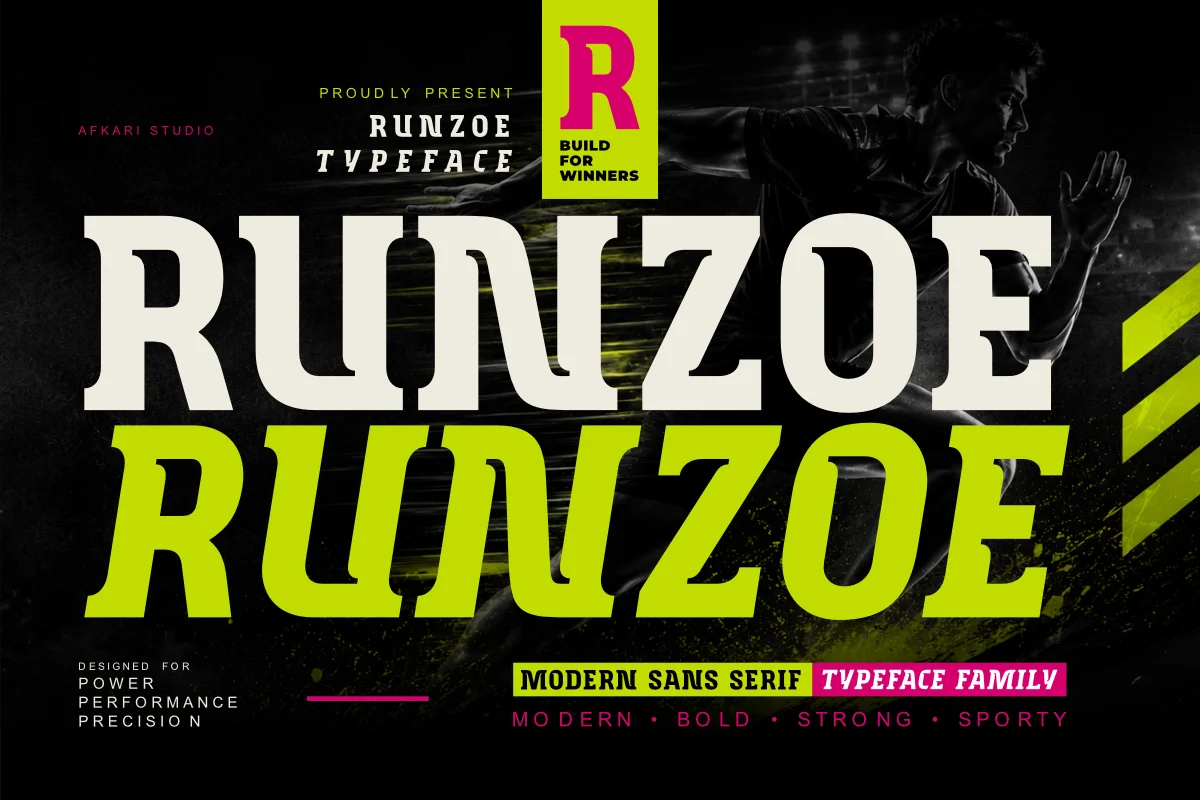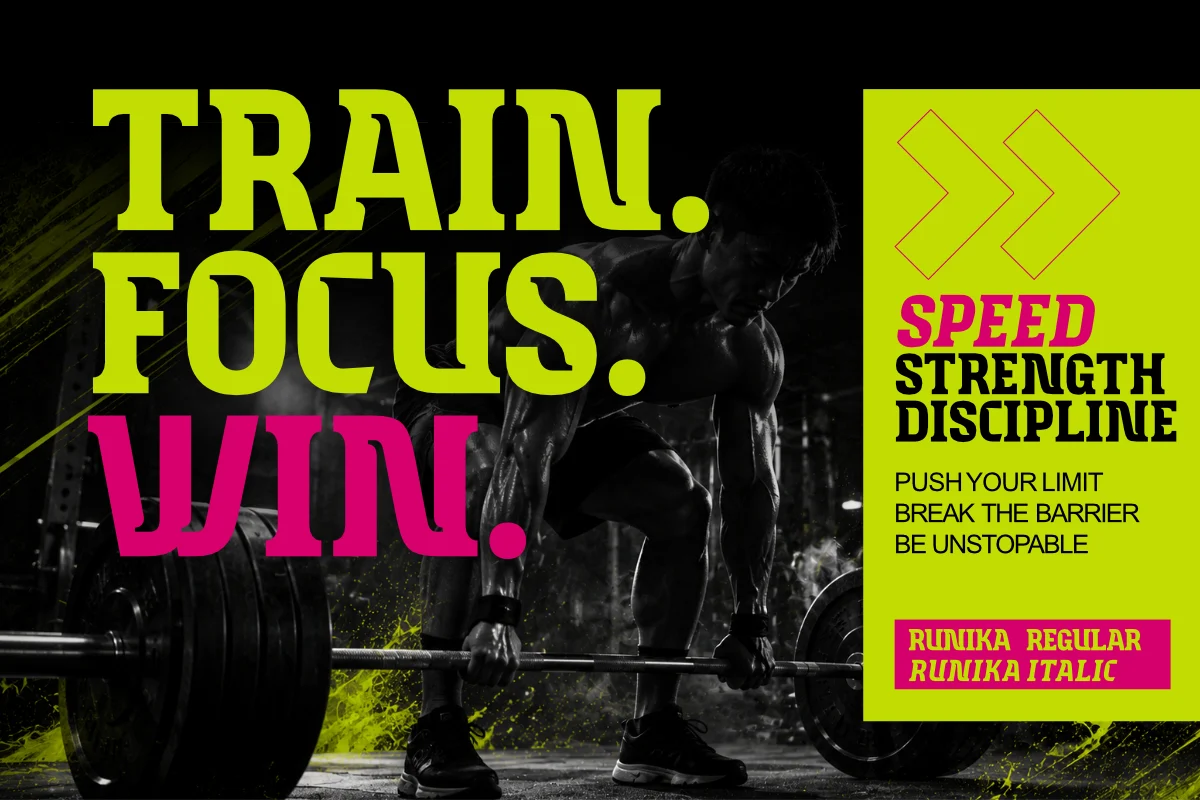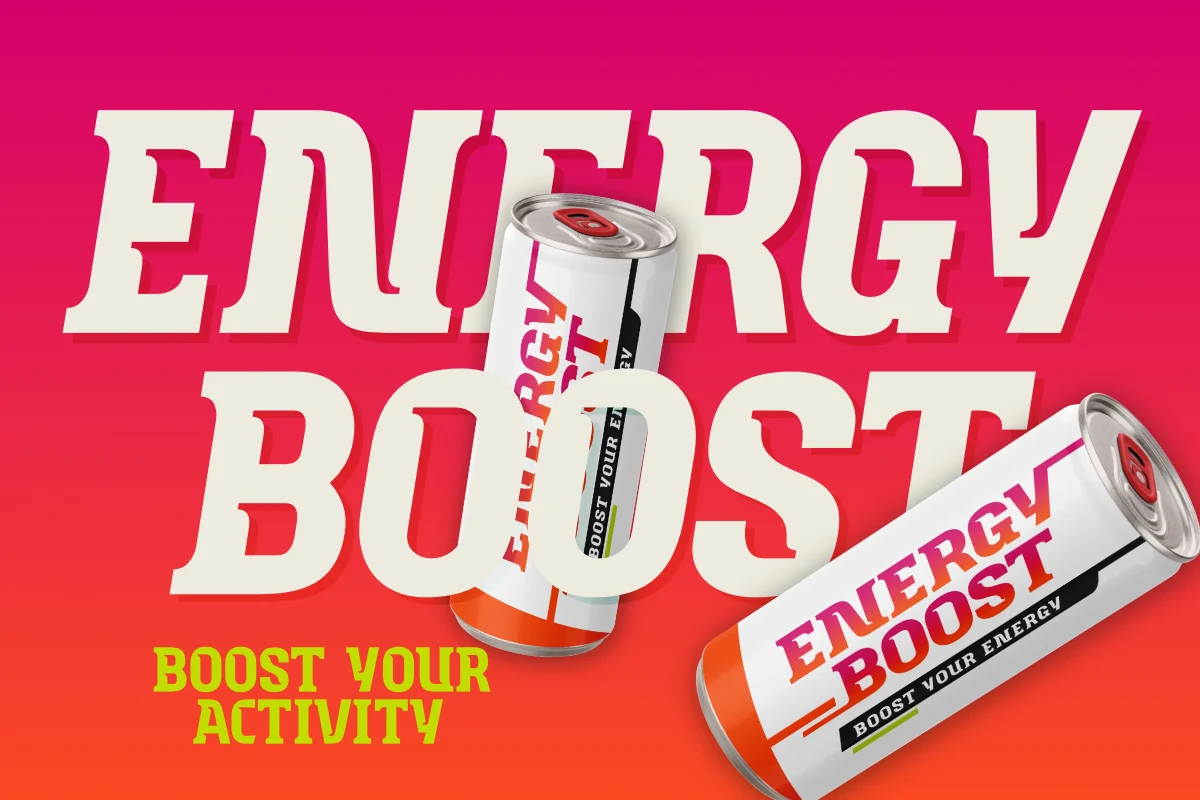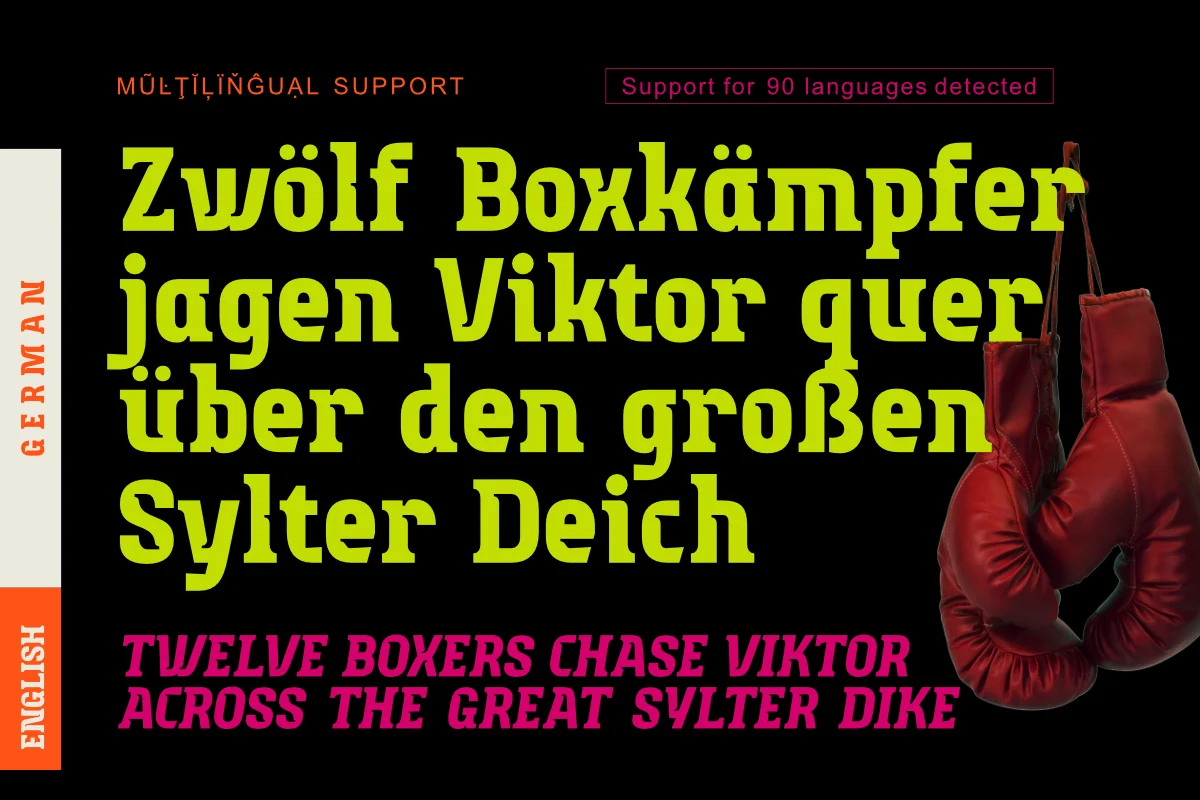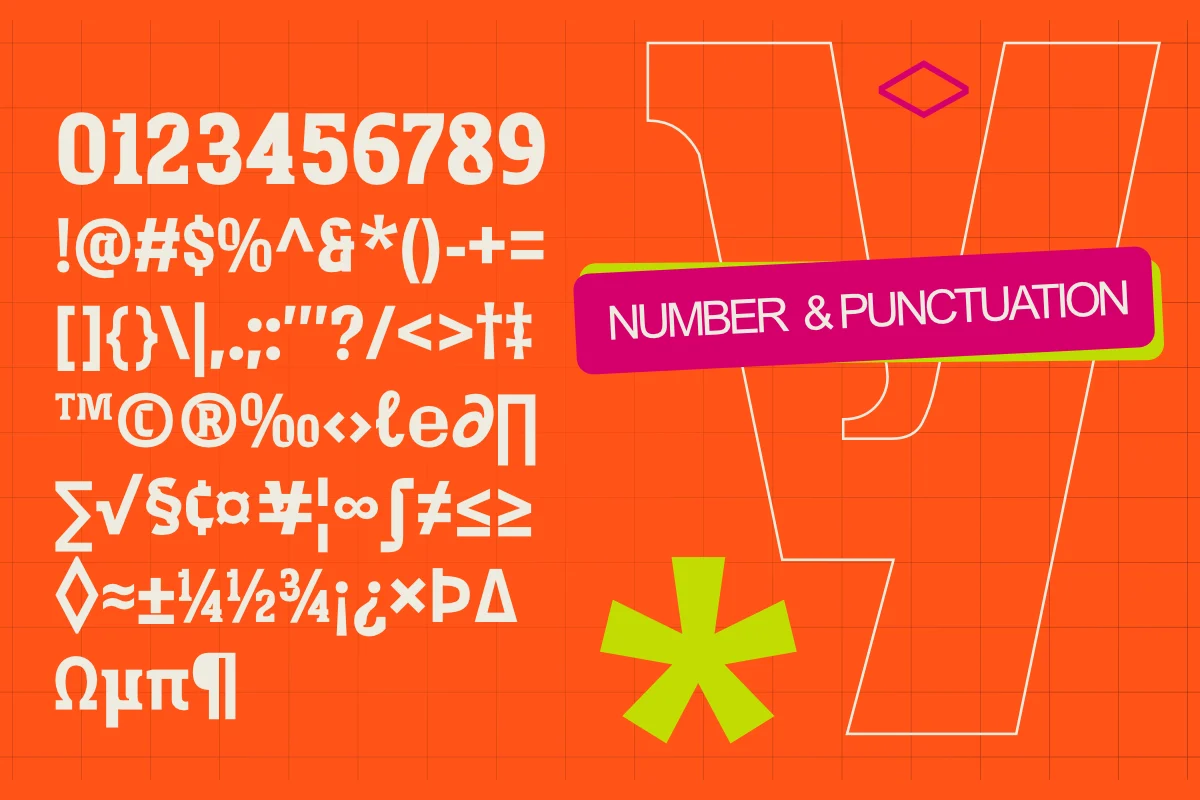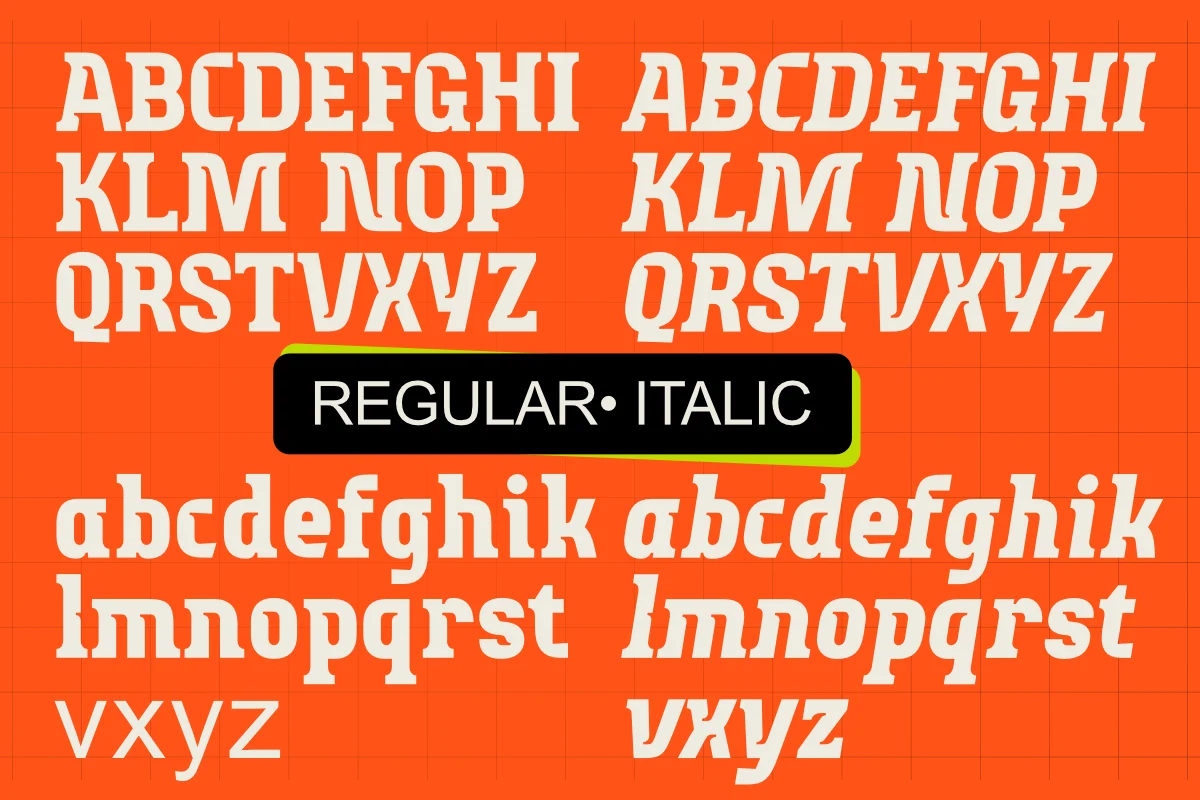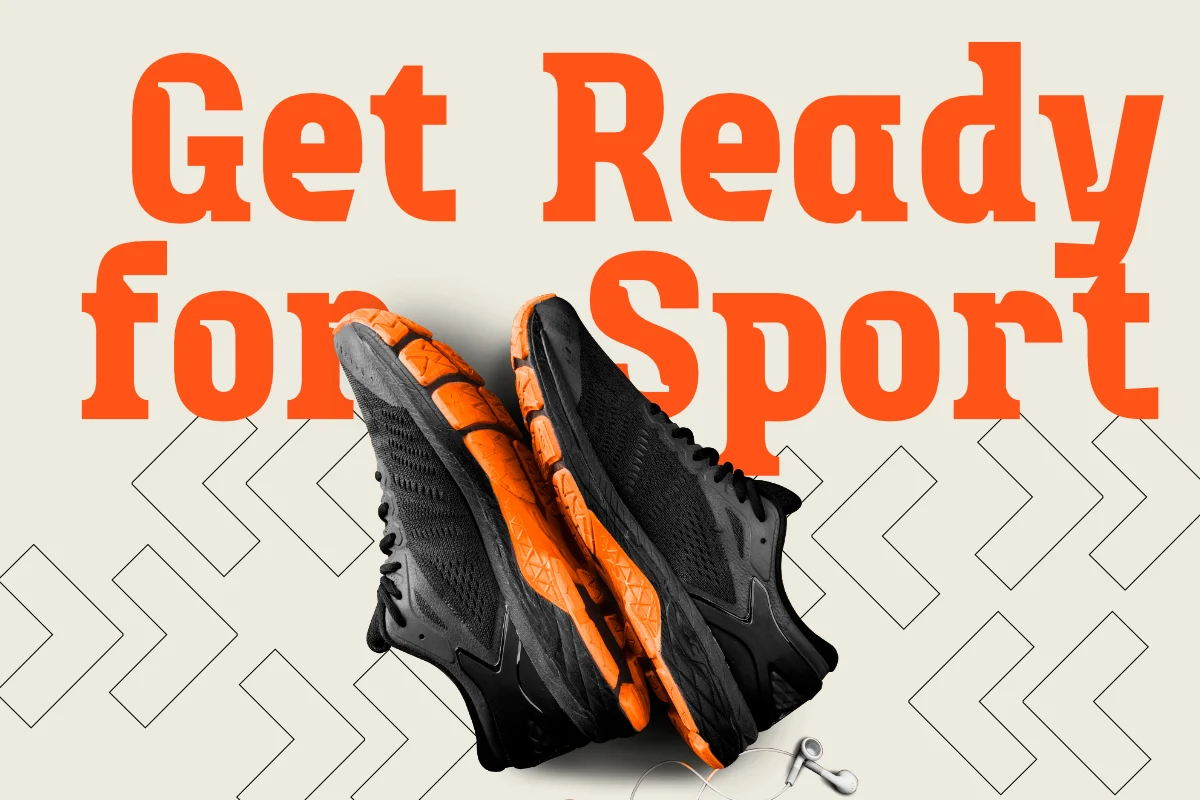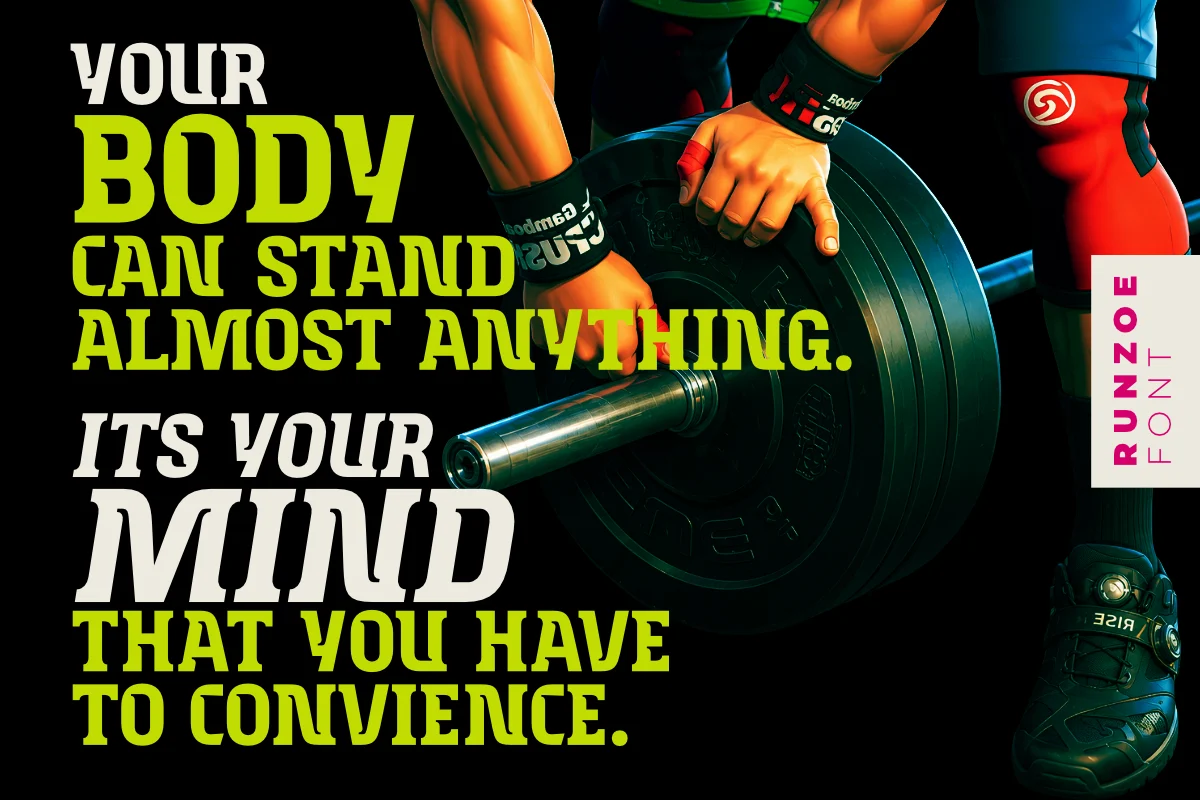
Runzoe is a bold and contemporary modern sans serif display typeface crafted to deliver strong visual impact with exceptional versatility. Designed for creators, brands, and designers who demand clean aesthetics and powerful typography, Runzoe combines geometric precision with modern character details to create a typeface that stands out across both digital and print applications.
Featuring Regular and Italic styles, Runzoe offers flexibility for dynamic branding systems, eye-catching headlines, sports-inspired graphics, advertising campaigns, social media content, logo design, packaging, posters, and editorial layouts. Its modern structure ensures excellent readability while maintaining a distinctive personality that commands attention.
With balanced proportions, sharp letterforms, and a confident visual rhythm, Runzoe is perfect for projects that require a professional, futuristic, and energetic appearance. Whether you’re creating a modern brand identity, fashion campaign, esports graphics, technology branding, or promotional materials, Runzoe provides the typographic strength needed to elevate your design.
Highlighted Features:
- Uppercase, Lowercase, Number, and Punctuation
- Special Alternates and Ligatures
- Bold Display Typeface
- Mültîlíñgúãl Sùppört for; ä ö ü Ä Ö Ü ß ¿ ¡